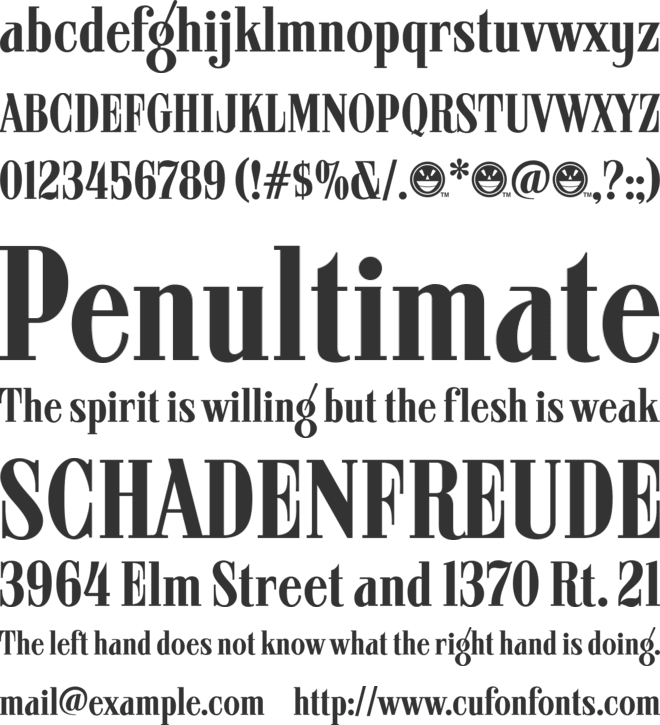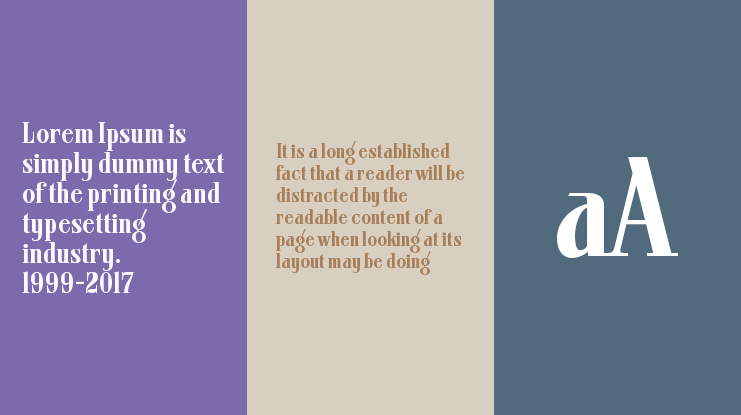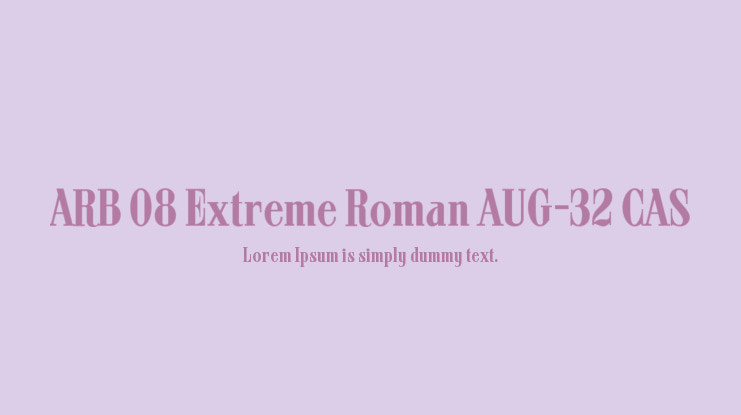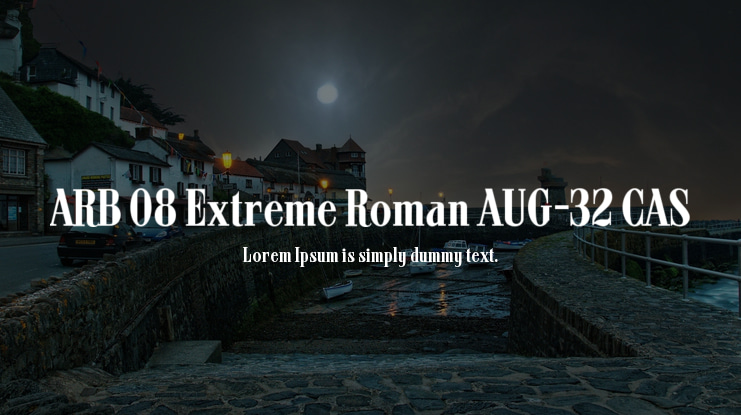
ARB 08 Extreme Roman AUG-32 CAS Font Family
From August, 1932 comes the 8th alphabet by Alf R. Becker, as published in Signs of the Times magazine by ST Publications. Narrow and elegant is the key to this font, only I've made the serifs a little bigger than you normally find on a face like this. This is a font for signs, after all. And there's nothing worse than disappearing serifs once you back up for a good look at your handiwork. There's a lot of simplicity in this font, mixed in with the usual complexities, like that killer lowercase g that is sure to leave you drooling with excitement--or possibly despair, for those with a weak viewpoint.